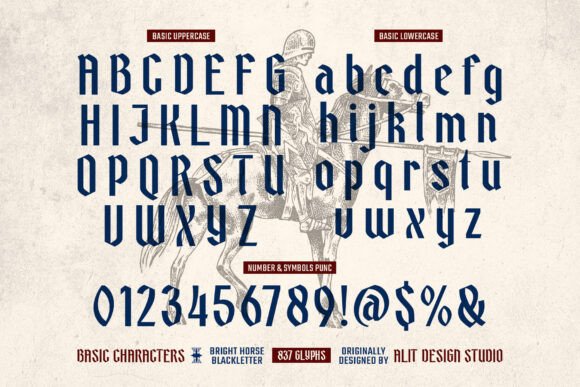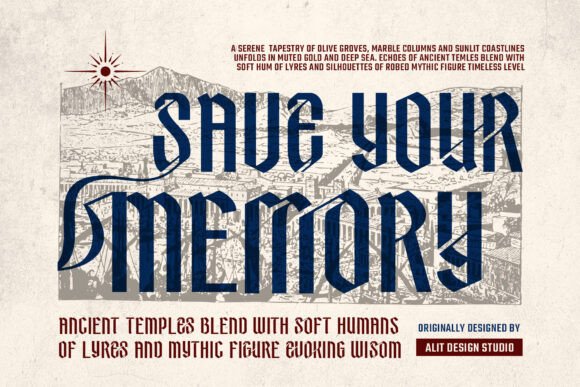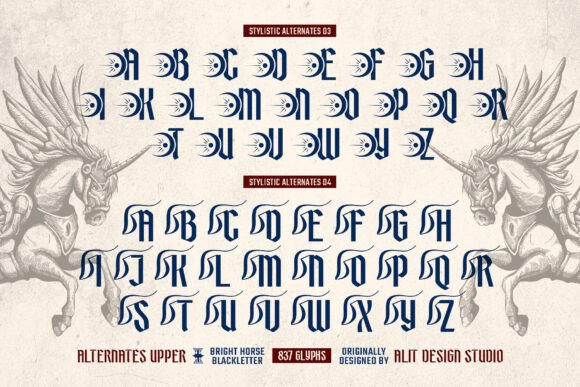
Introduction to Bright Horse Font
Have you ever stumbled upon an intriguing font that sparks a creative idea, transporting you to a world of endless possibilities? For designers, this moment is all too familiar. It’s the instant when a font’s unique character ignites a spark, propelling a project forward. For many, this moment arrived with the discovery of the Bright Horse Font.
Designed by Alit Design Studio, this striking typeface masterfully fuses traditional blackletter elegance with bold sans-serif influences, resulting in a truly one-of-a-kind design resource. With its commanding presence, the Bright Horse Font reimagines medieval aesthetics through a modern lens, offering a unique blend of historical charm and contemporary edge.
Key Features of Bright Horse Font
- Unique, stylish, and elegant design that adds a touch of sophistication to any project
- Perfect for use in digital and print design, including logos, posters, and business cards
Honest Review: Bright Horse Font
As a designer, I’ve worked with my fair share of fonts, but the Bright Horse Font has definitely caught my attention. One of the things that stands out about this font is its versatility. It’s perfect for a creative project that requires a touch of elegance and sophistication.
Here are some of the key features that I love about the Bright Horse Font:
- Smooth lines and high quality design
- Perfect for creative projects that require elegance and sophistication
However, there are a few limitations to consider. ⚠️ The font may not be suitable for bold or dramatic designs, as it tends to get lost in larger text.
Overall, I’m impressed with the Bright Horse Font and would definitely recommend it to designers looking for a high-quality, elegant font for their creative projects.
Tips for Getting the Most Out of Bright Horse Font
Use Bright Horse Font for high-quality design projects, such as business cards, brochures, and posters. This font is a great design resource that can add a professional touch to your work. To get the most out of it, experiment with different font sizes, colors, and styles to create a unique and eye-catching design.